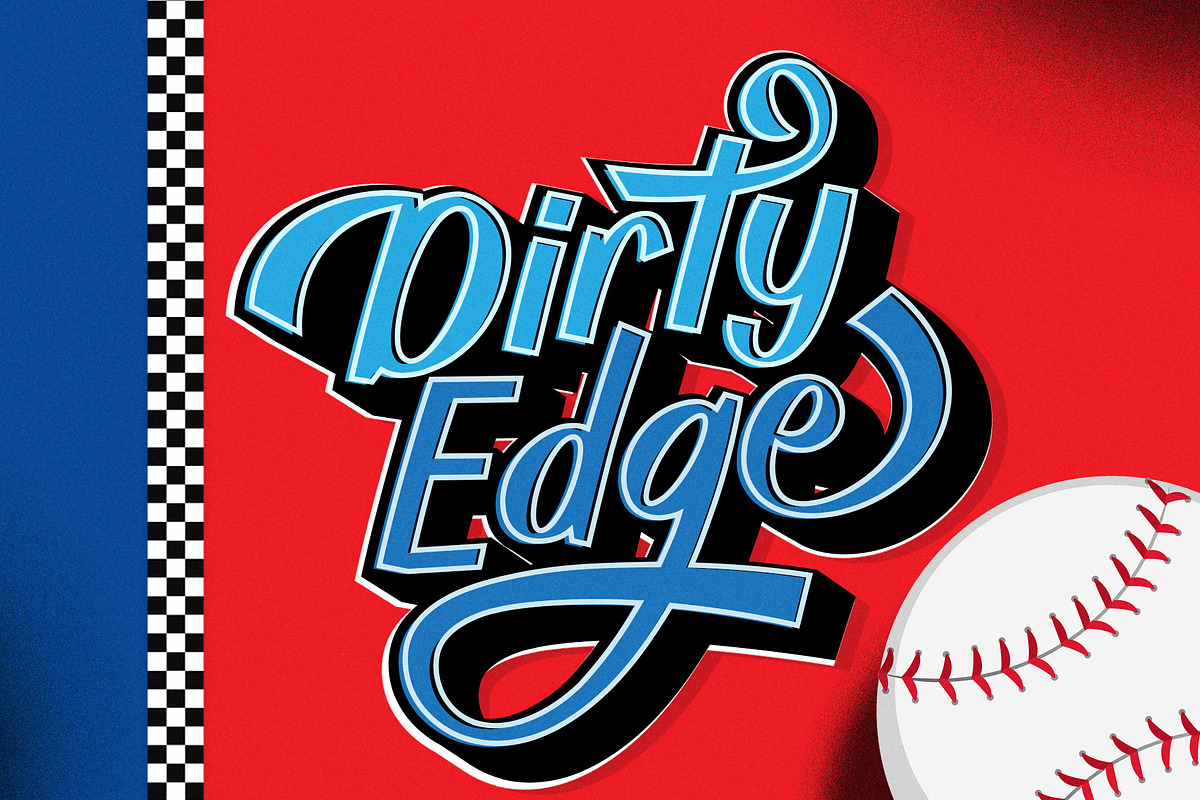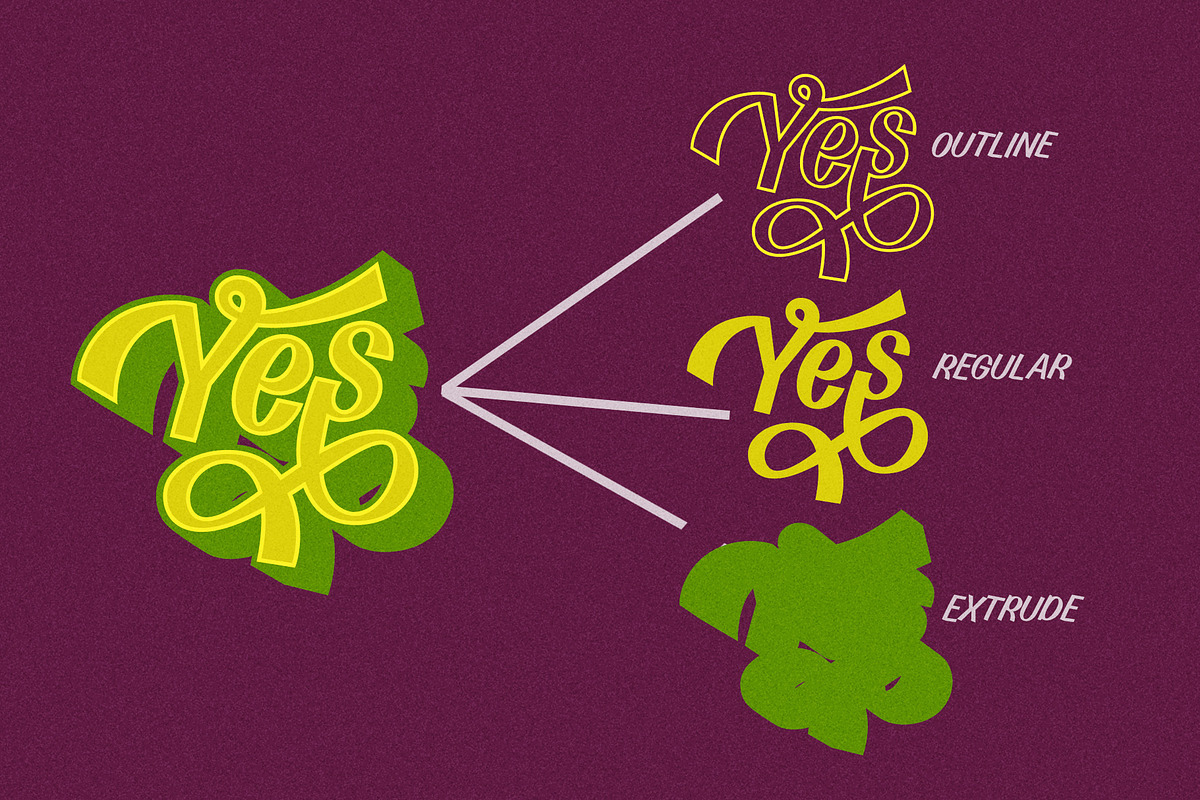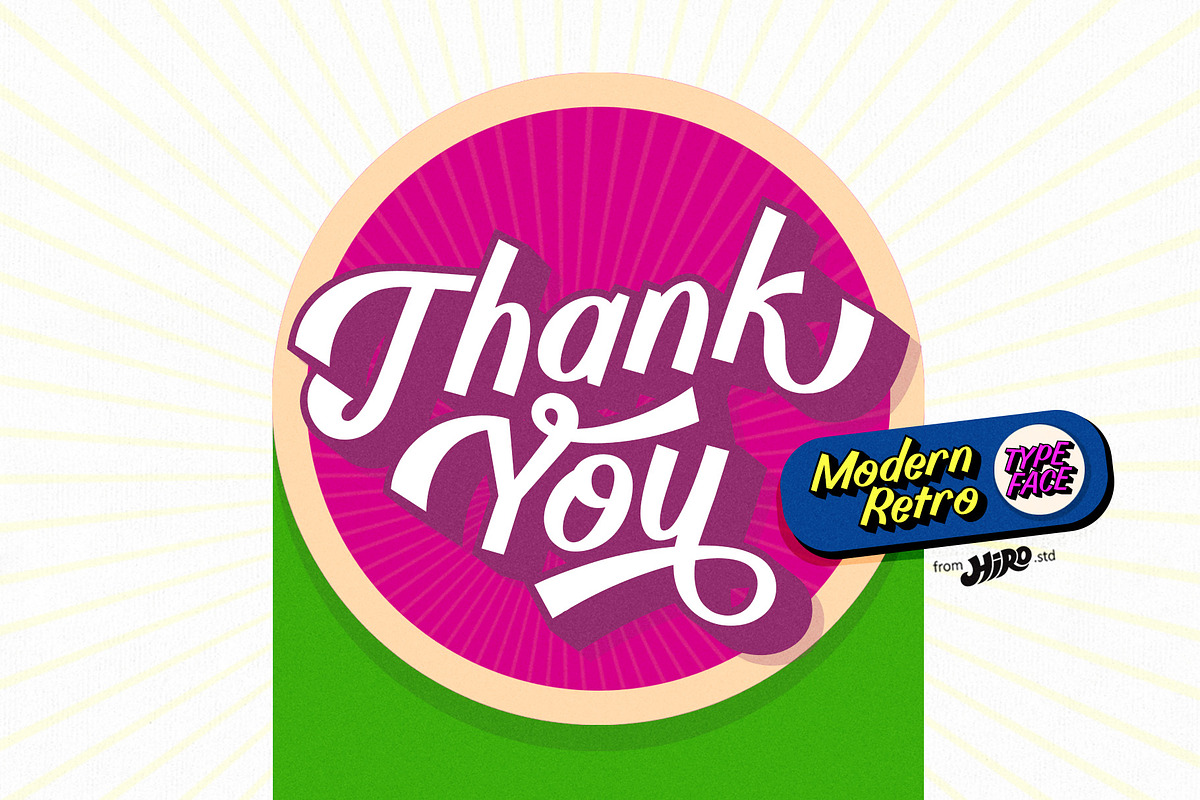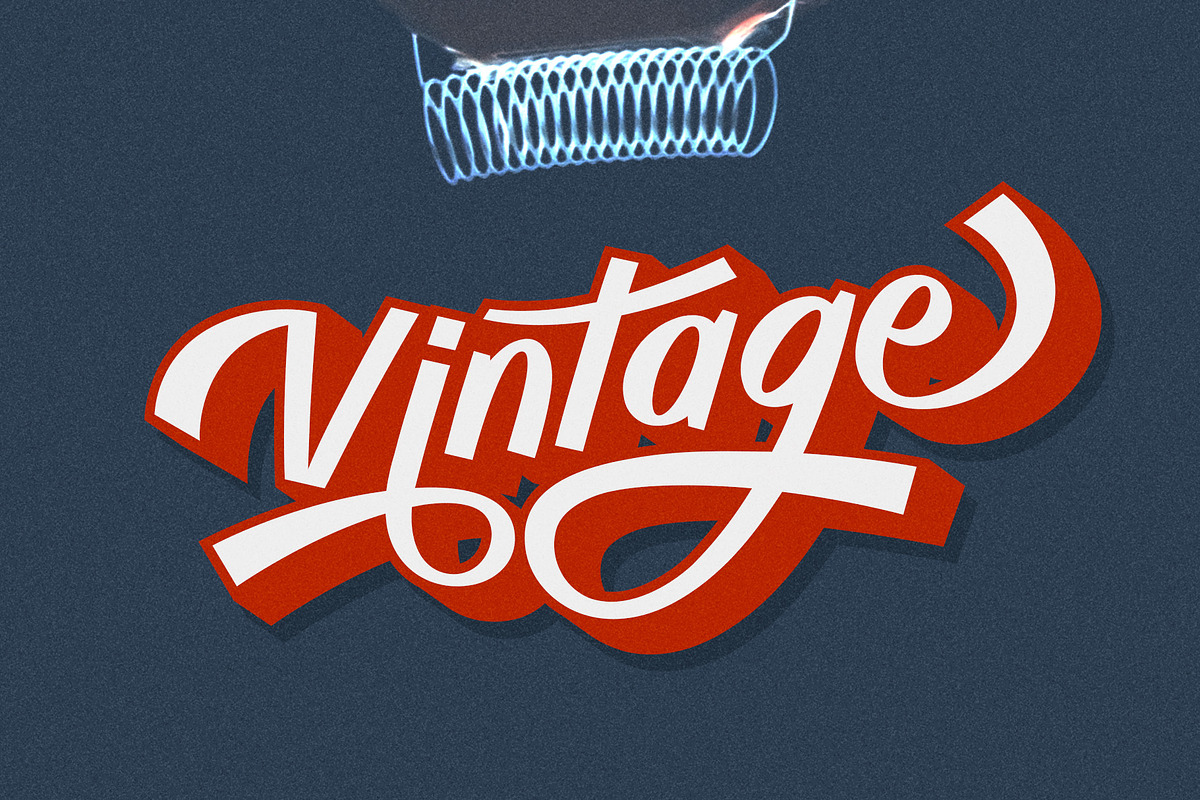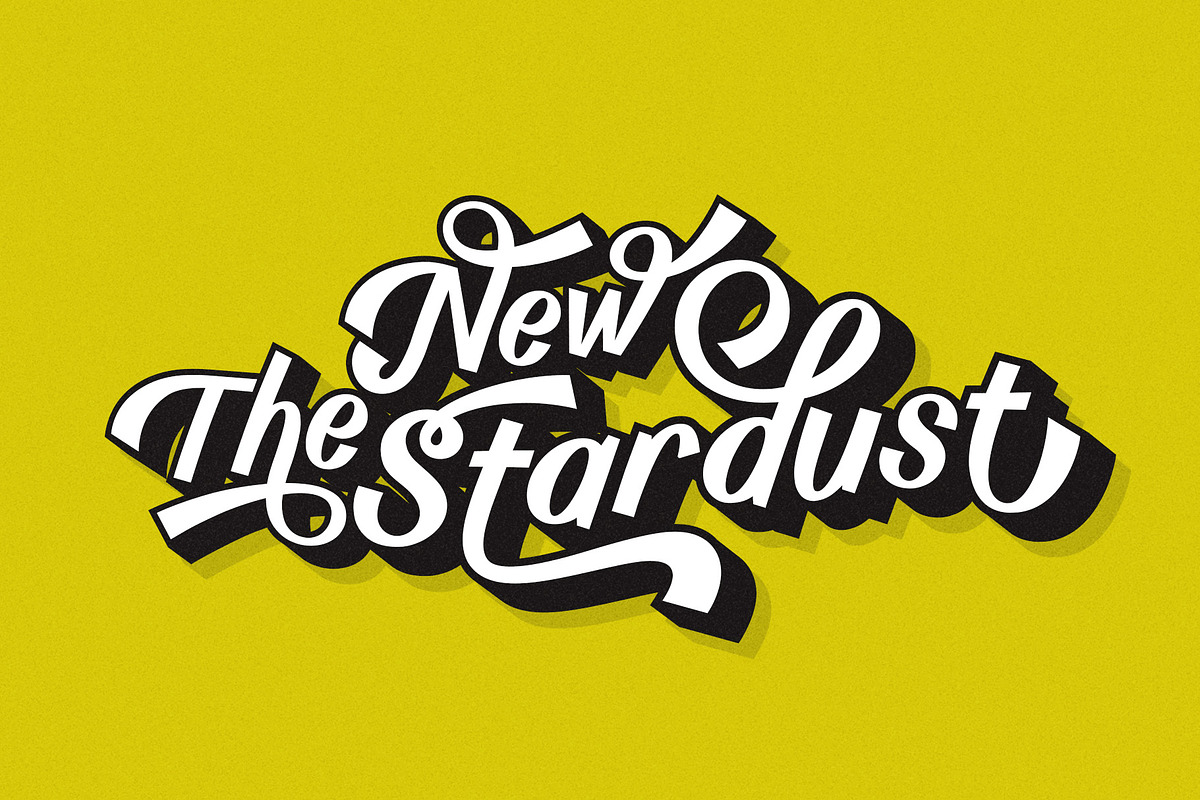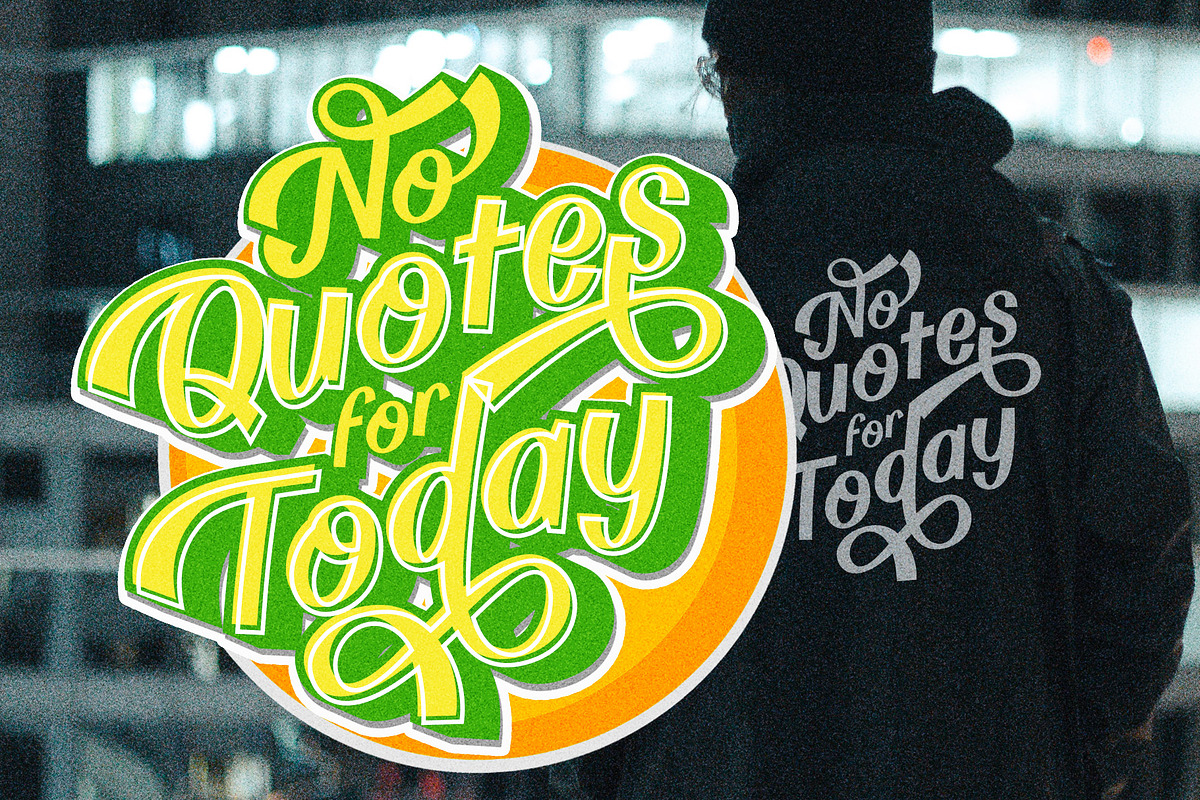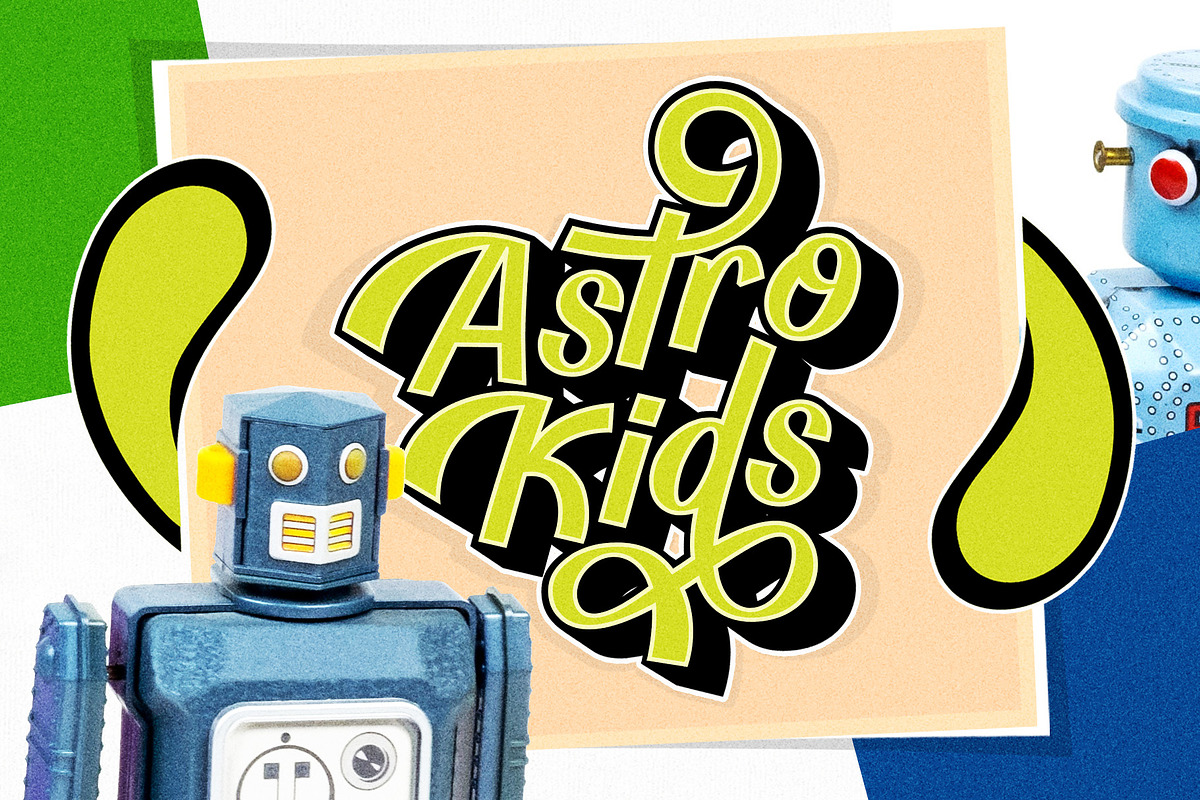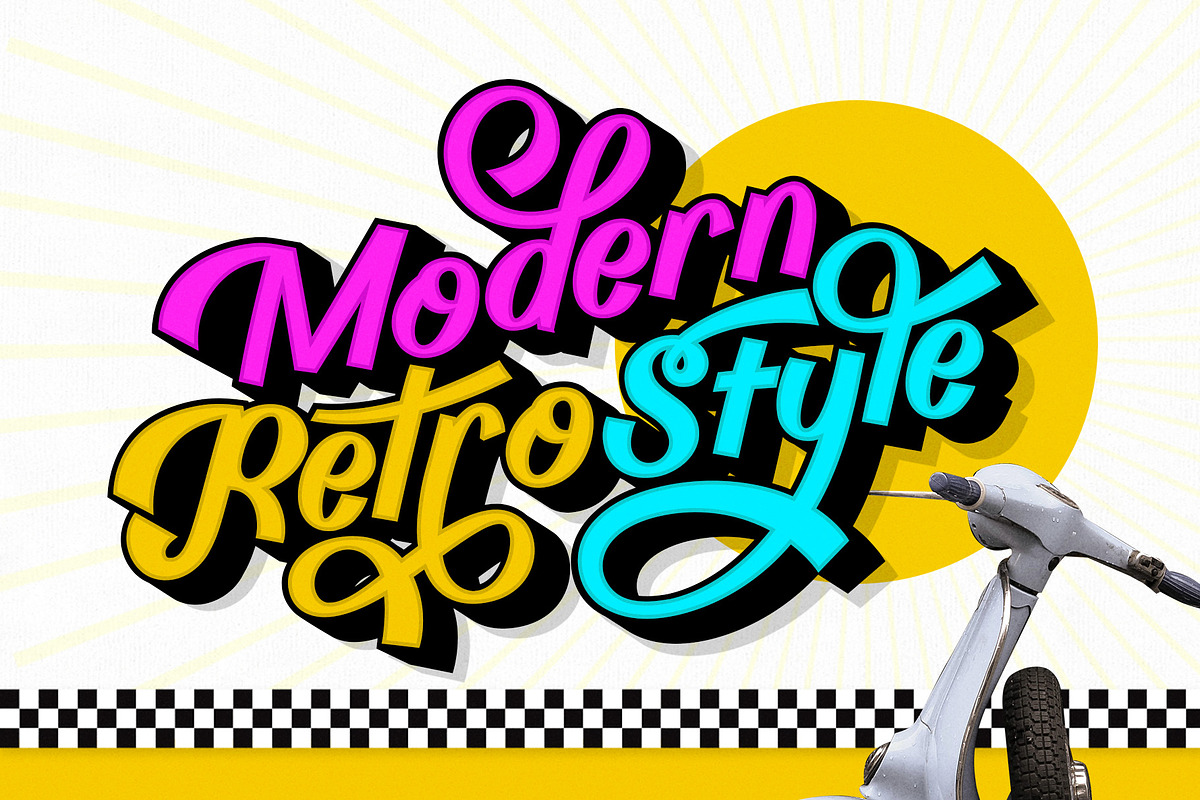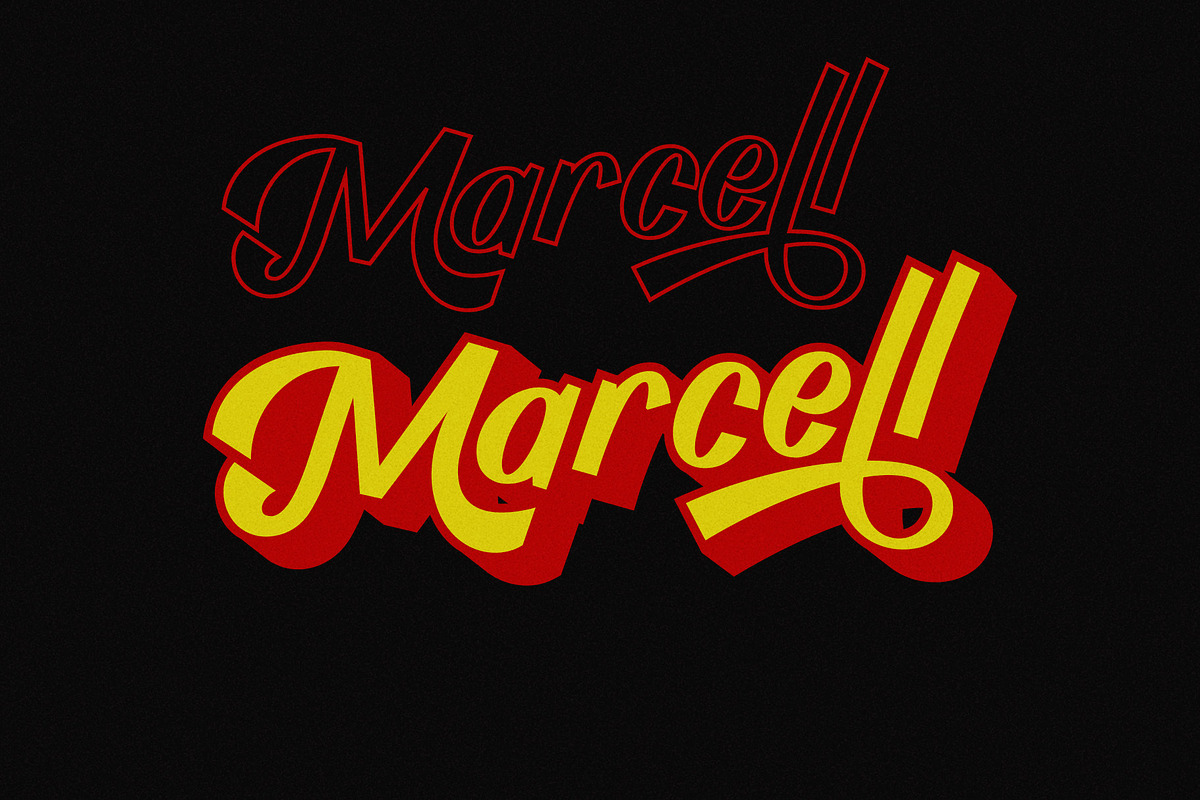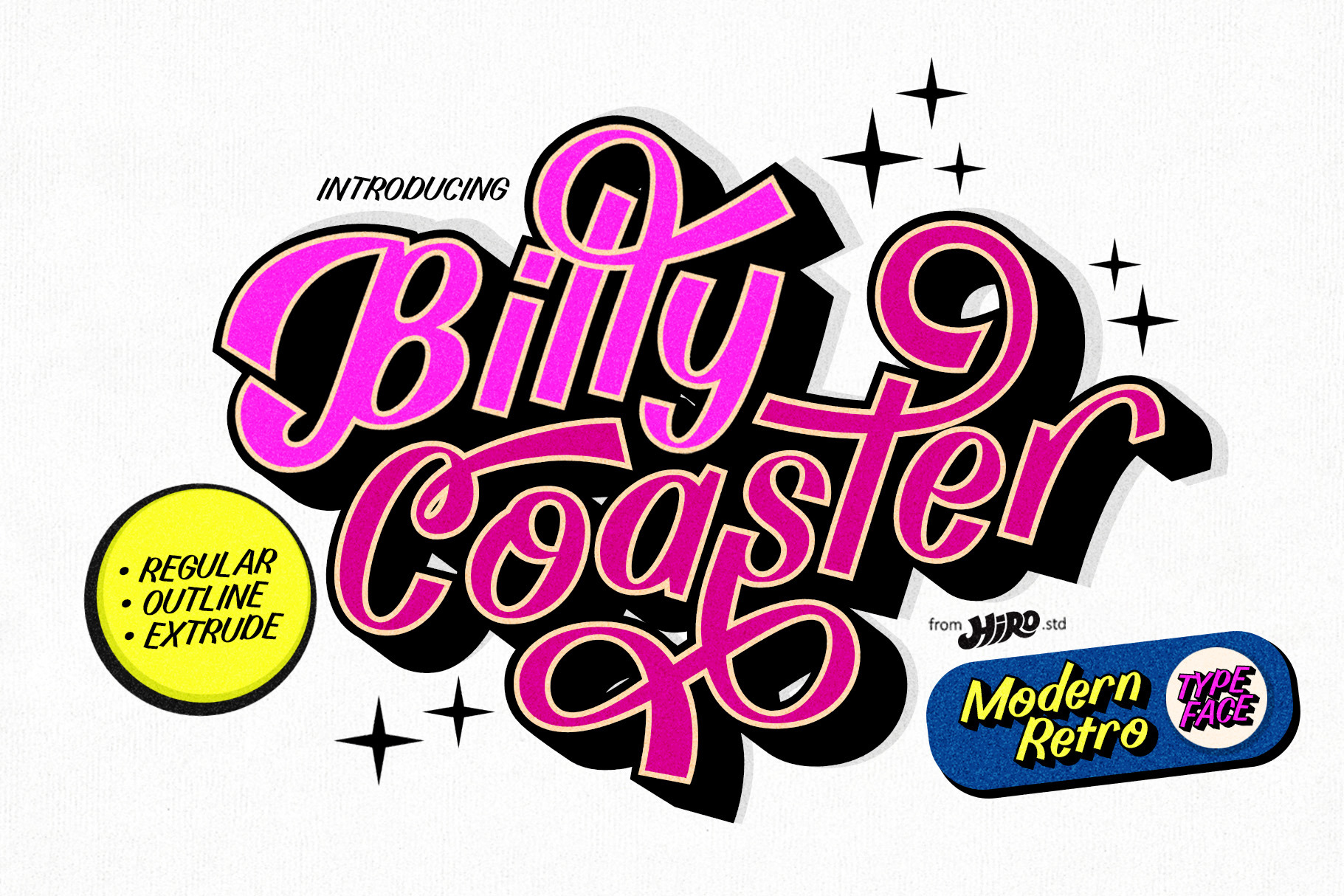
Billy Coaster Modern Retro Typeface
Billy Coaster is a Modern Retro Typeface.
This font describes about stylist, modern retro, modern vintage, cool, and easy to use. Billy Coaster Typeface inspired from the modern retro typography and designs in late 80's untill 90's.
USE Billy Coaster Typeface works great in Logotype, Branding, Apparel, Poster, Magazine and any projects that need Modern Retro taste.